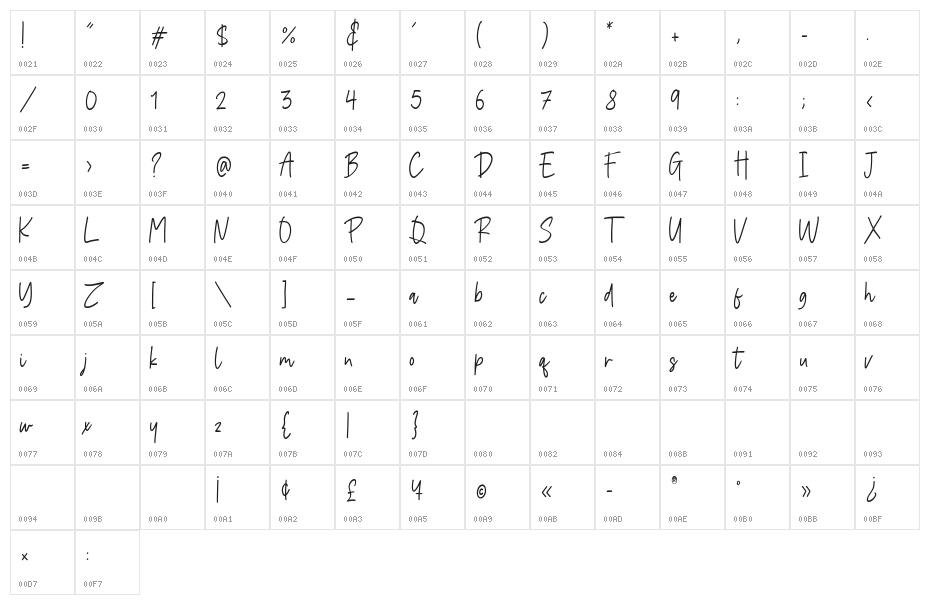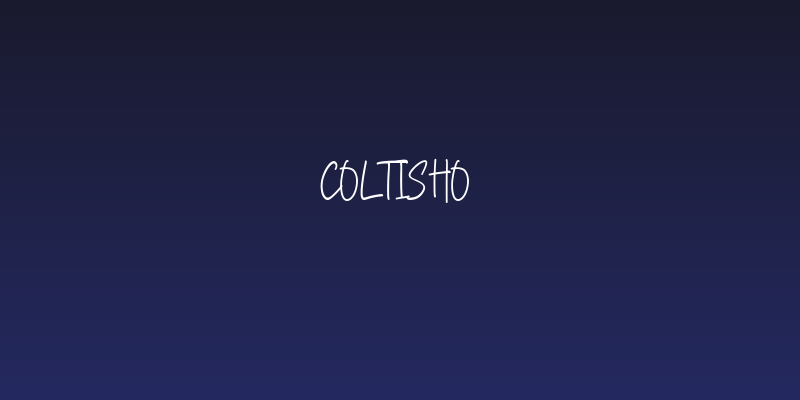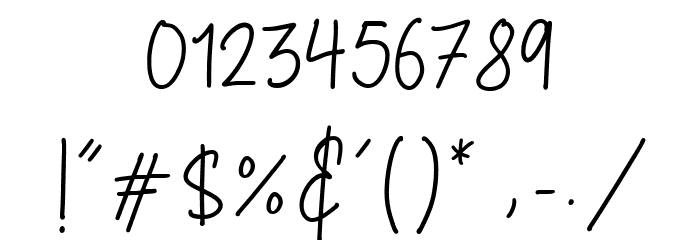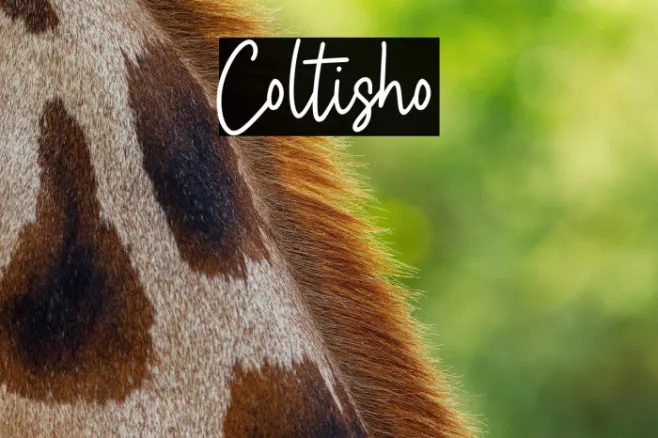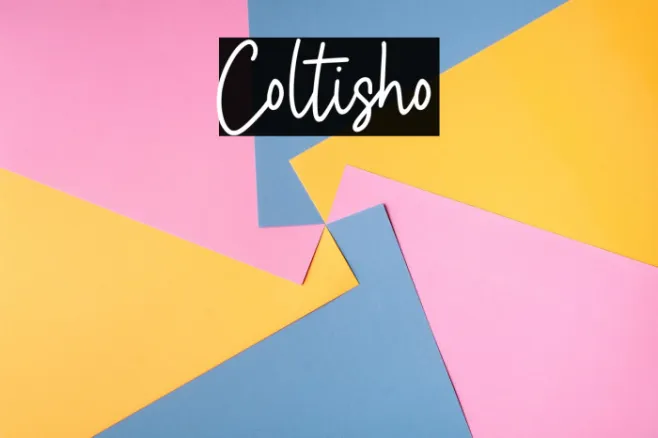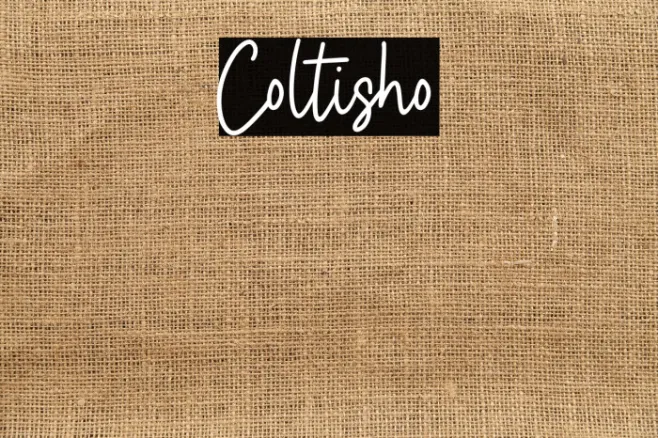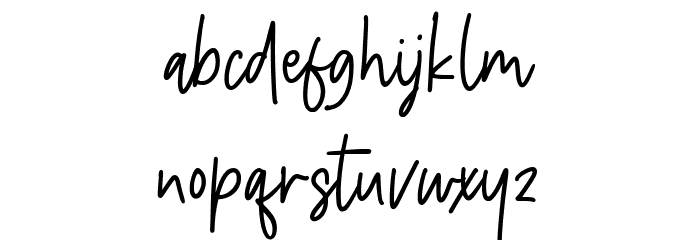
Coltisho Font
Coltisho Description
This font features a playful and casual handwritten style, characterized by its tall and narrow letterforms. The strokes are smooth and slightly irregular, giving it a personal and informal feel. The uppercase letters are distinct with a slight slant, while the lowercase letters maintain a consistent flow, enhancing readability. The numbers and special characters are crafted to match the overall style, ensuring a cohesive look across all characters. This font's unique charm makes it suitable for projects that require a touch of personality and creativity.
| Use Case | Logos, Headlines, Social media graphics |
| Proposed Projects | Ideal for greeting cards, personal branding, social media graphics, and creative projects that benefit from a personal touch. |